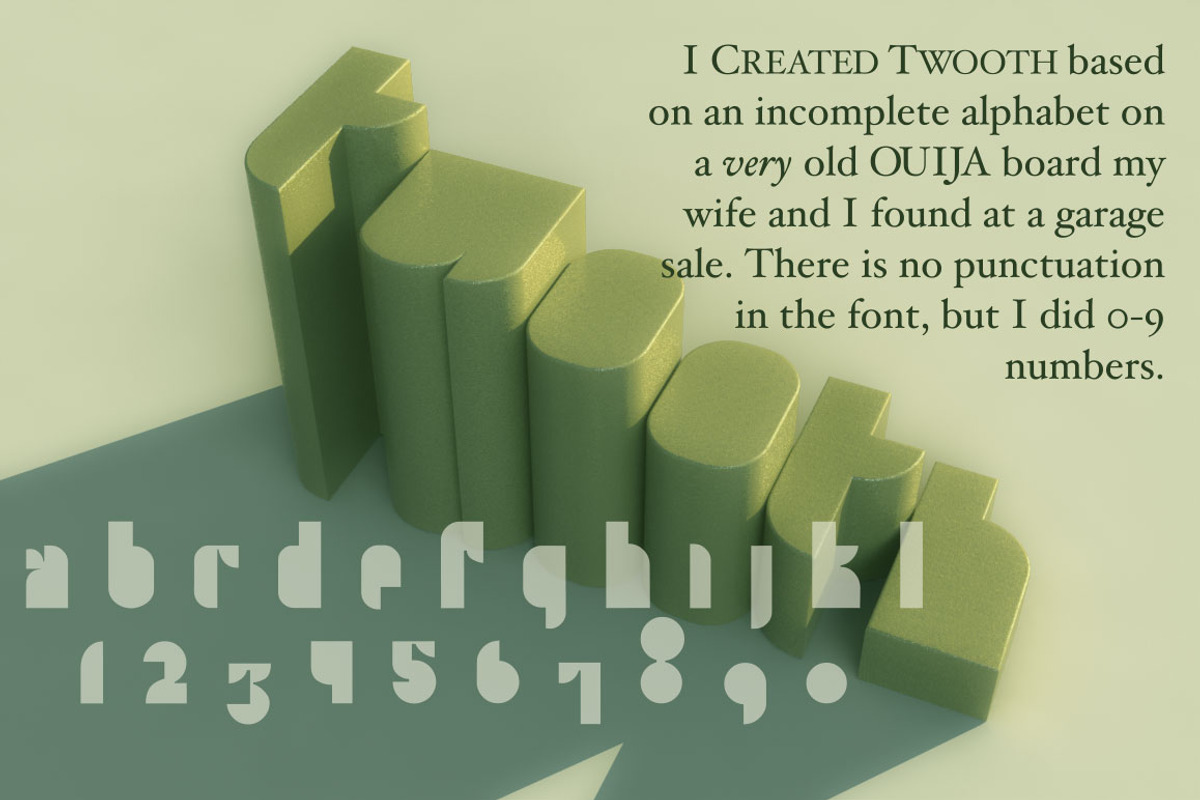
Twooth typeface in OTF anf TTF by Type on Tap is a font selected for branding, posters, packaging, typography.
- I've included both OTF and TTF versions, because 3D font extruders sometimes want TrueType, and "Tooth" looks terrific as 3D text!
Twooth typeface in OTF anf TTF by Type on Tap fits naturally into Branding, posters, packaging, typography.